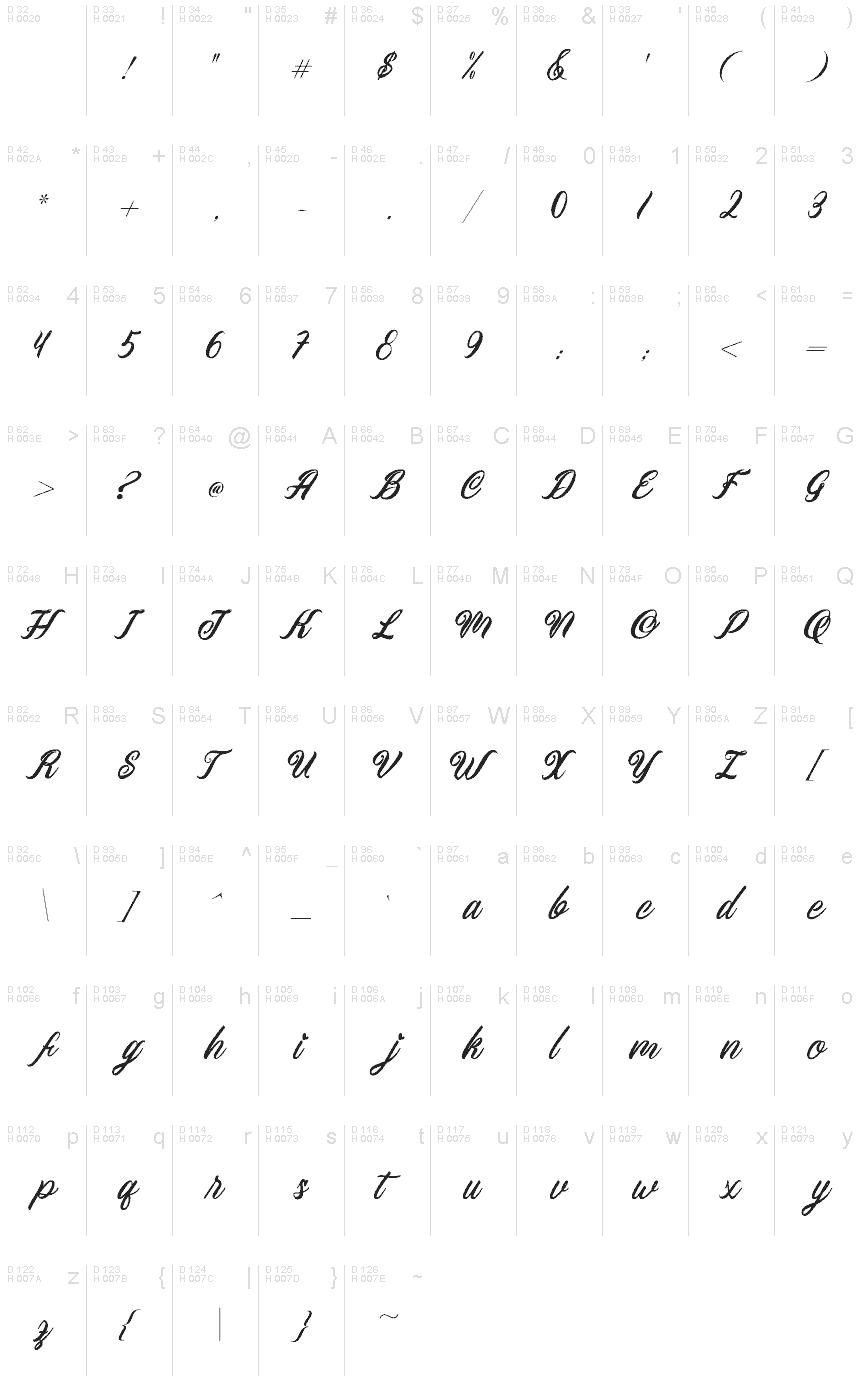
Calligata Script
Calligata Script font by SesaGrafika is a condensed handwritten font with an elegant, flowing aesthetic. This formal typeface features high-contrast curves and slim decorative flair giving it that signature cursive style. Calligata Script has a sophisticated appearance and diverse applications, so give it a go in all your needed works.